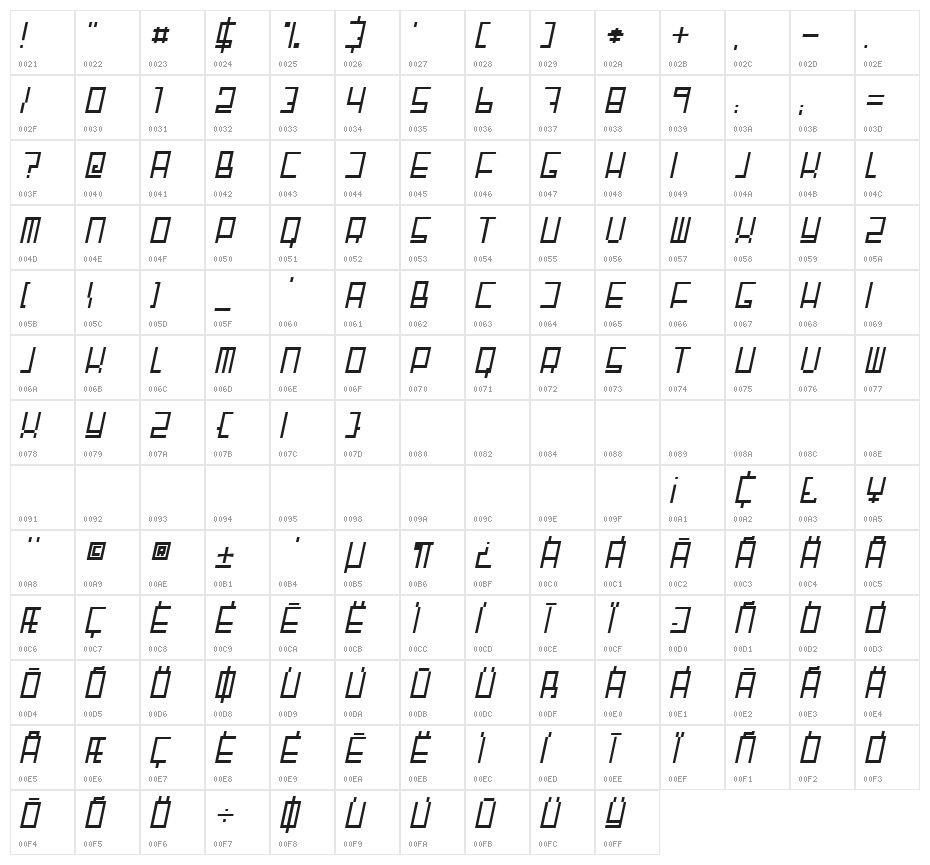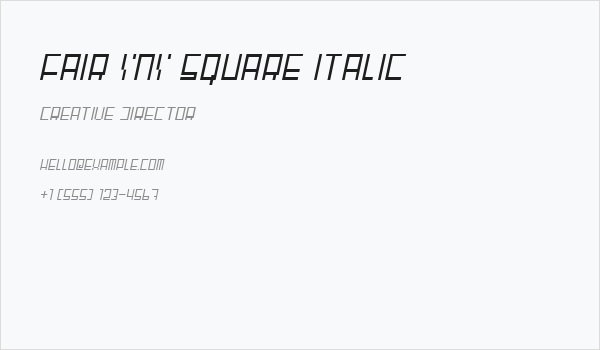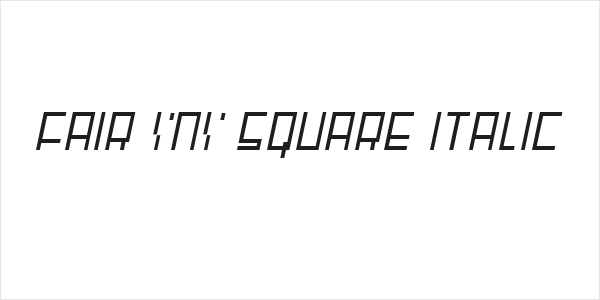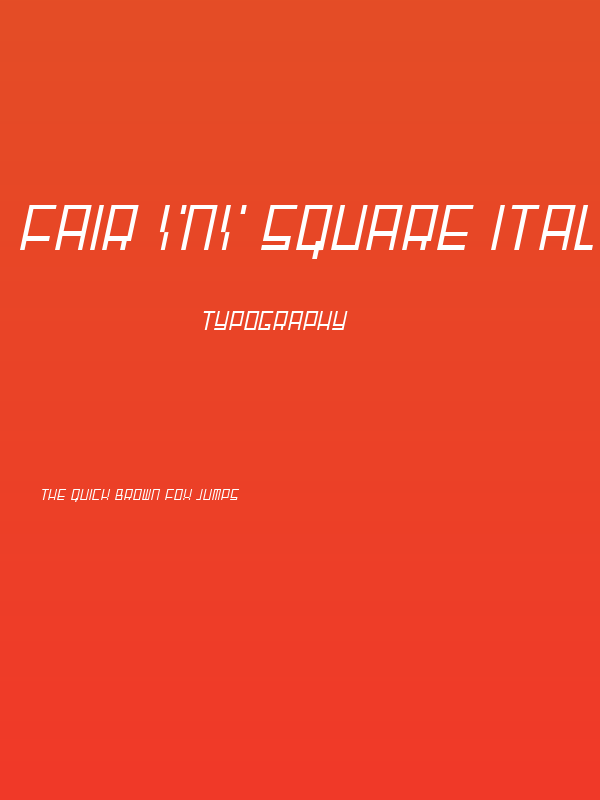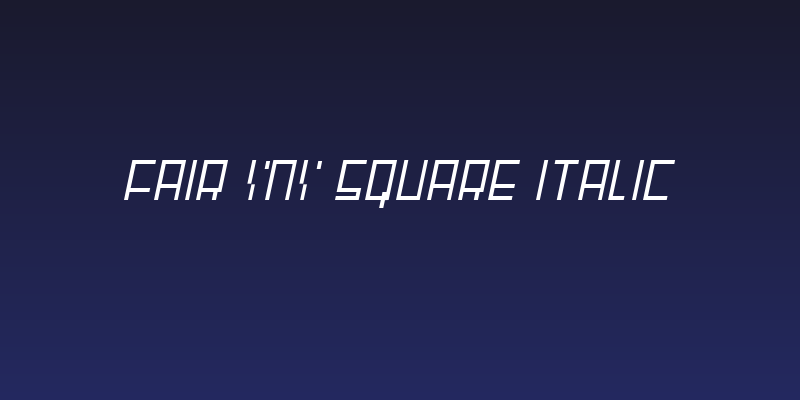
Fair 'N' Square Italic Font
Fair 'N' Square Italic Description
This font features a geometric and angular design with a distinct italic slant, giving it a dynamic and modern appearance. The characters are constructed with straight lines and sharp corners, creating a futuristic and technical feel. The uppercase and lowercase letters maintain a consistent style, with uniform stroke widths that contribute to a clean and cohesive look. The numerals and special characters follow the same design principles, ensuring a harmonious overall aesthetic. This font's unique style makes it suitable for projects that require a contemporary and edgy touch.
| Overall Style | Modern, Futuristic |
| Proposed Projects | Ideal for technology branding, modern posters, futuristic designs, and digital interfaces. |